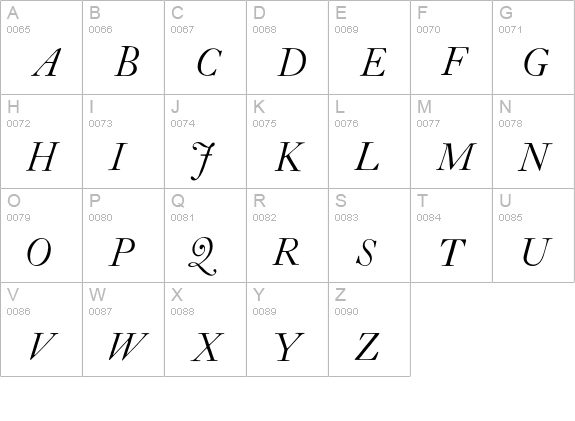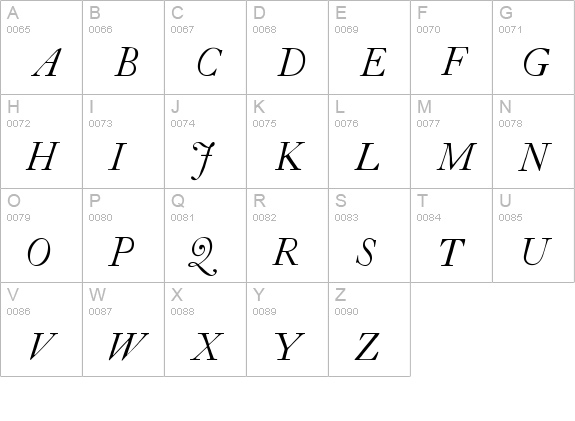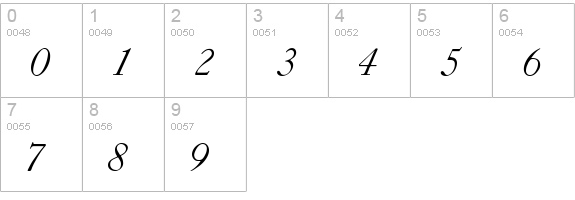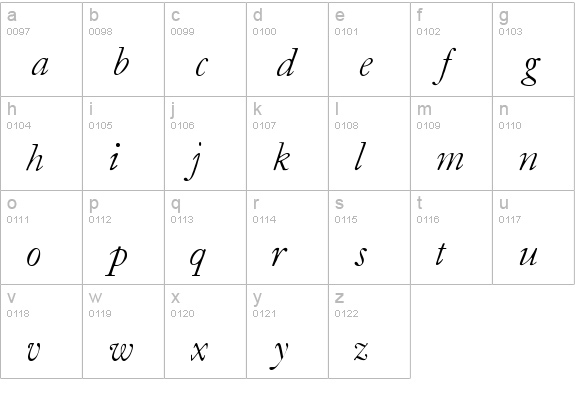
CaslonLW-Italic Font Details
CaslonLW-Italic is a distinctive, italic variant in the CaslonLW typeface family \xE2\x80\x94 well suited to design and typography projects.
CaslonLW-Italic font is a classic and elegant typeface that exudes sophistication and charm. Its slanted italic design adds a touch of flair to any text, making it perfect for use in invitations, branding, and editorial design. The graceful curves and delicate serifs give this font a timeless appeal that is both refined and versatile. What sets CaslonLW-Italic font apart is not only its timeless beauty but also the fact that it is available for free download at FontsMarket.com. This means that you can easily access this stunning typeface and incorporate it into your projects without any cost. Whether you are a designer looking to elevate your work or an individual in search of a stylish font for personal use, CaslonLW-Italic is a fantastic choice that won't break the bank. Download it today and add a touch of sophistication to your designs!